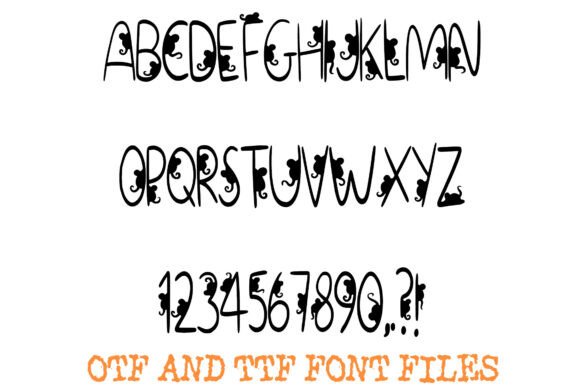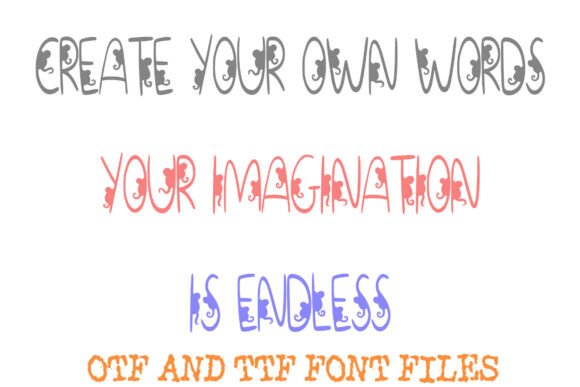
Introduction to Mischievous Mouse Font
Bring a touch of playful storytelling to your next project with the Mischievous Mouse Font.
This unique display typeface features elegant, thin-line letters and numbers that serve as a playground for tiny, hand-drawn mouse silhouettes From scurrying up the “H” to peeking around the “O,” these little rodents add a sense of movement and whimsy to every word.
Key Features of Mischievous Mouse Font
Why Choose Mischievous Mouse Font?